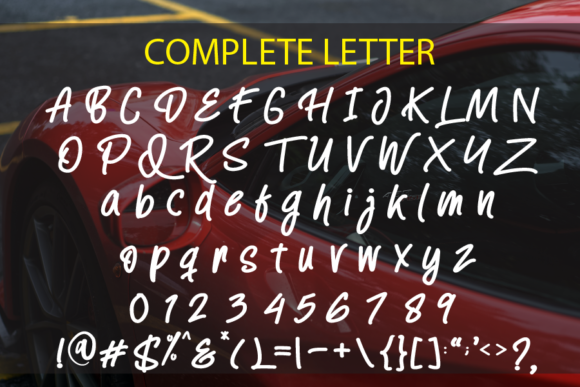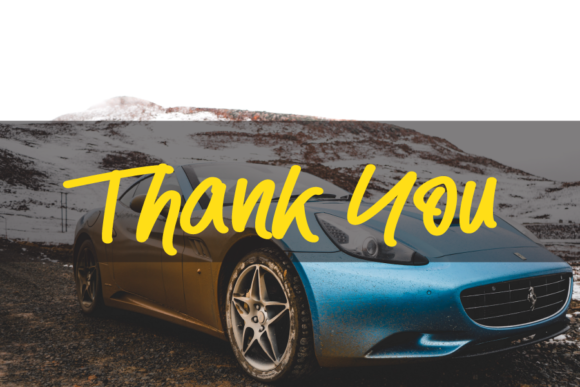
Introduction to Most Wanted Font
Have you ever stared at a blank page, trying to bring a creative project to life, only to find the perfect font eluding you? This is where the Most Wanted Font comes in – a game-changing design resource that’s about to become your new go-to. With its bold and trendy display style, this original font is perfect for adding a touch of sophistication to your letterheads, titles, and stationery.
Whether you’re a seasoned designer or a crafty enthusiast, the Most Wanted Font is a valuable addition to your design arsenal. Its transparent background and high-quality design make it a versatile choice for a wide range of creative projects. And the best part? It’s available for free download, making it an accessible resource for designers of all levels.
Key Features of Most Wanted Font
- High-quality design resource ideal for creative projects, with a sleek and modern aesthetic.
- Unique characteristics include a transparent background, making it perfect for overlaying on images or videos.
- Designed to be highly versatile, suitable for a wide range of applications, from logos and branding to digital art and graphics.
Honest Review: Most Wanted Font
I recently had the chance to work with the Most Wanted Font, and I have to say, it’s a solid addition to any designer’s toolkit. ✨
The font is a high-quality design resource that’s perfect for creative projects that require a unique touch. It’s available for a free download, which is always a bonus. The transparent background feature is a nice touch, allowing you to easily integrate it into any design.
Here are some of the key features that make the Most Wanted Font stand out:
However, there are a few limitations to be aware of:
- May require additional styling to achieve desired look
Overall, I’m impressed with the Most Wanted Font, and I’d definitely recommend it to designers looking for a unique and high-quality design resource. With a few tweaks and adjustments, it can add a touch of sophistication to any creative project.
Designing with Most Wanted Font
The Most Wanted Font is a high-quality design resource that can elevate your creative project to the next level. With a transparent background, this font is perfect for adding a touch of sophistication to your designs.
Tips for Getting the Most Out of Most Wanted Font
To get the most out of the Most Wanted Font, be sure to experiment with different font sizes, colors, and effects. You can also pair the font with other design elements, such as graphics and images, to create a visually appealing design.
Common Use Cases for Most Wanted Font
The Most Wanted Font is perfect for a variety of creative projects, including:
- Posters and signs
- Menus and pricing lists
Alternatives to Most Wanted Font
Ostrich Sans is a modern sans-serif font ideal for creative projects that require a clean and minimalistic design. It’s perfect for designs with a transparent background, allowing the text to take center stage. This font is available for free download and is suitable for both personal and commercial use.
Comparison to Most Wanted Font: Ostrich Sans has a more subtle feel, making it suitable for a wider range of designs. It’s a great alternative for those who want a high-quality font without the bold, eye-catching feel of Most Wanted Font.